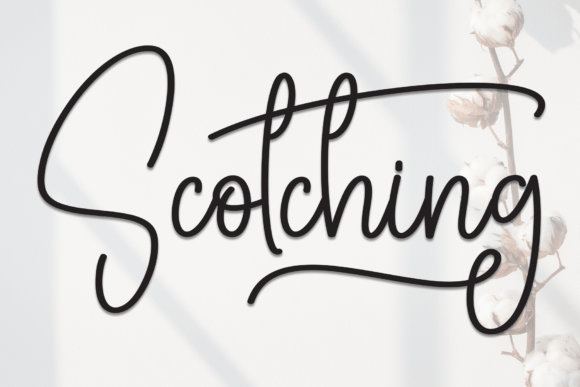
Introducing Scotching Font: The Epitome of Elegance and Sophistication
In the realm of typography, few fonts manage to convey the essence of elegance and sophistication as effortlessly as Scotching. This exquisite signature script font has been meticulously crafted to embody the perfect blend of smooth lines and charming ligatures, making it an ideal choice for a myriad of applications where a touch of class is desired. From feminine branding and personal signatures to fashion logos, wedding stationery, and lifestyle blogs, Scotching offers a handwritten touch that elevates any project to new heights of refinement.
The Design Philosophy Behind Scotching
Scotching’s design is rooted in the philosophy of simplicity and elegance. Each letterform has been carefully considered to ensure that the font exudes a sense of fluidity and grace. The smooth lines and curves are not just aesthetically pleasing but also highly legible, making Scotching a versatile font suitable for various creative projects. The charming ligatures add an extra layer of sophistication, allowing for a more personalized and unique touch that can make any text stand out.
Applications of Scotching Font
The versatility of Scotching font makes it an excellent choice for a wide range of applications. Here are some of the areas where Scotching truly shines:
- Feminine Branding: Scotching’s elegant and sophisticated design makes it perfect for brands aiming to convey a sense of femininity and grace. Whether it’s for a fashion label, beauty brand, or any business looking to add a touch of elegance to their identity, Scotching is an excellent choice.
- Personal Signatures: For individuals looking to add a touch of class to their personal signatures, Scotching offers a sophisticated solution. Its unique yet legible design ensures that your signature stands out while still being easily recognizable.
- Fashion Logos: In the competitive world of fashion, branding is everything. Scotching provides fashion designers and brands with a font that can help them establish a luxurious and high-end identity.
- Wedding Stationery: For couples planning their special day, Scotching offers a beautiful way to add a personal touch to their wedding stationery. From invitations to thank-you cards, Scotching brings a level of elegance and romance to any wedding literature.
- Lifestyle Blogs: Lifestyle bloggers aiming to add a personal and sophisticated touch to their content can benefit greatly from using Scotching. Its readability and aesthetic appeal make it perfect for blog headings, quotes, and any other highlighted text.
Key Features of Scotching Font
Scotching font comes with several key features that make it stand out in the world of typography:
- Smooth Lines: The font’s smooth lines contribute to its elegant appearance, making it suitable for projects that require a refined look.
- Charming Ligatures: Ligatures are an essential part of script fonts, and Scotching does not disappoint. Its charming ligatures add a unique touch to the text, making it more personalized and visually appealing.
- Elegance and Simplicity: Scotching strikes the perfect balance between elegance and simplicity. Its design ensures that the text is not only beautiful but also easily readable.
Tips for Using Scotching Font Effectively
To get the most out of Scotching font, here are some tips for its effective use:
- Pair with Complementary Fonts: When using Scotching for headings or titles, pair it with a simpler, sans-serif font for body text. This contrast ensures that your content is both visually appealing and highly legible.
- Use Appropriate Sizes: Scotching is designed to make a statement, but it’s most effective when used at the right size. For body text, a smaller size can work well, while headings and titles can be larger to emphasize their importance.
- Experiment with Ligatures: Take advantage of Scotching’s charming ligatures to add a personal touch to your text. Experimenting with different ligatures can help you find the perfect combination that suits your project’s tone and style.
The Impact of Scotching on Brand Identity
In today’s competitive market, brand identity is more crucial than ever. The choice of font can significantly impact how a brand is perceived by its audience. Scotching, with its elegant and sophisticated design, offers brands a unique opportunity to establish a refined and classy identity. By incorporating Scotching into their branding materials, businesses can convey a sense of luxury, quality, and attention to detail that resonates with their target audience.
Scotching font is a sophisticated signature script font that brings a touch of elegance and simplicity to any project. Its smooth lines, charming ligatures, and balanced design make it perfect for a variety of applications, from feminine branding and personal signatures to fashion logos, wedding stationery, and lifestyle blogs. By understanding the design philosophy behind Scotching, exploring its applications, and leveraging its key features, designers and brands can harness the power of this exquisite font to elevate their projects to new heights of sophistication and class.